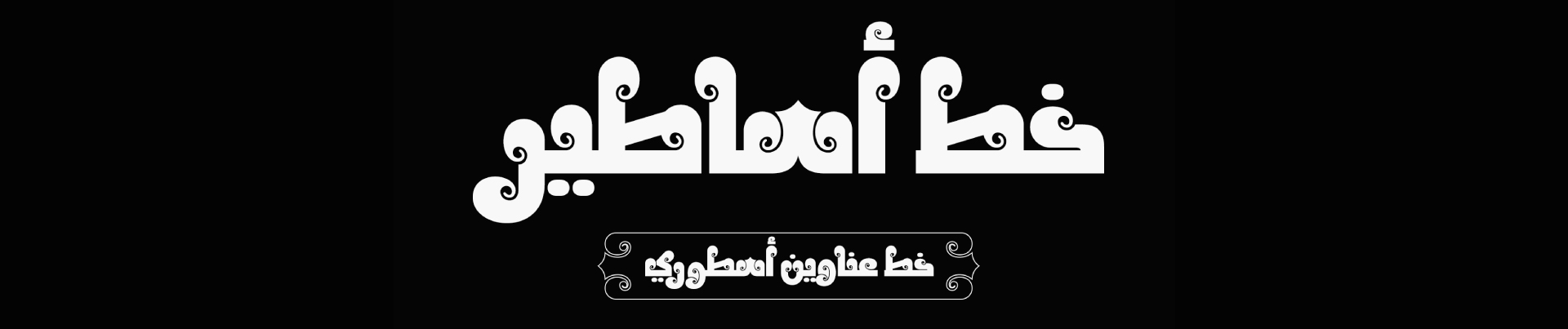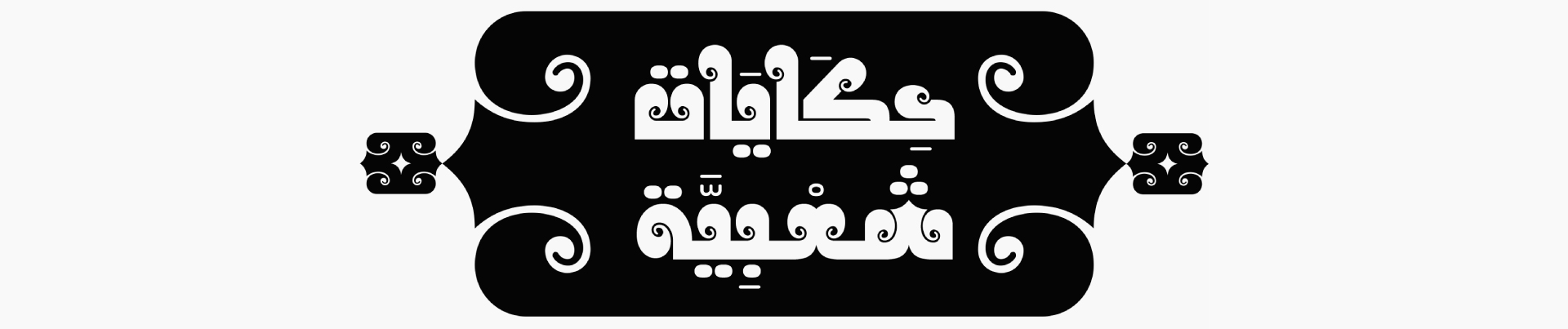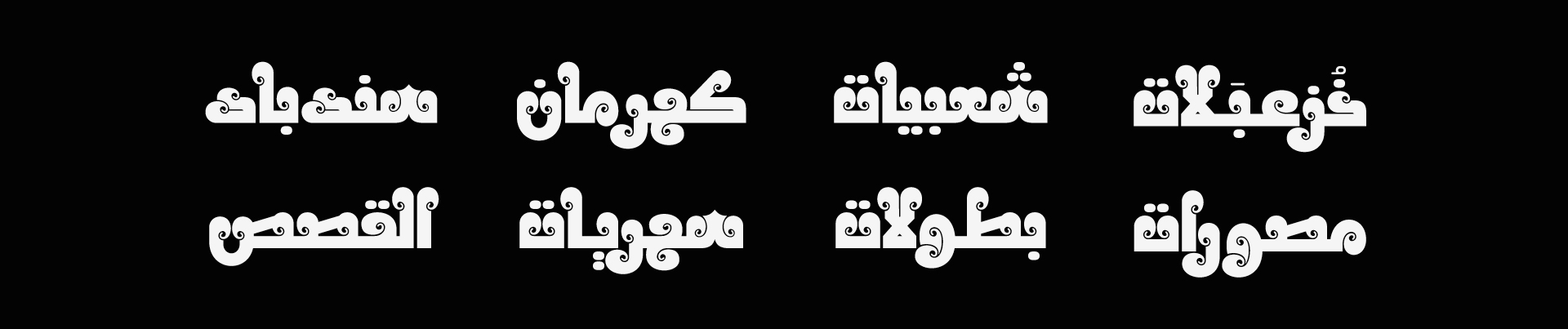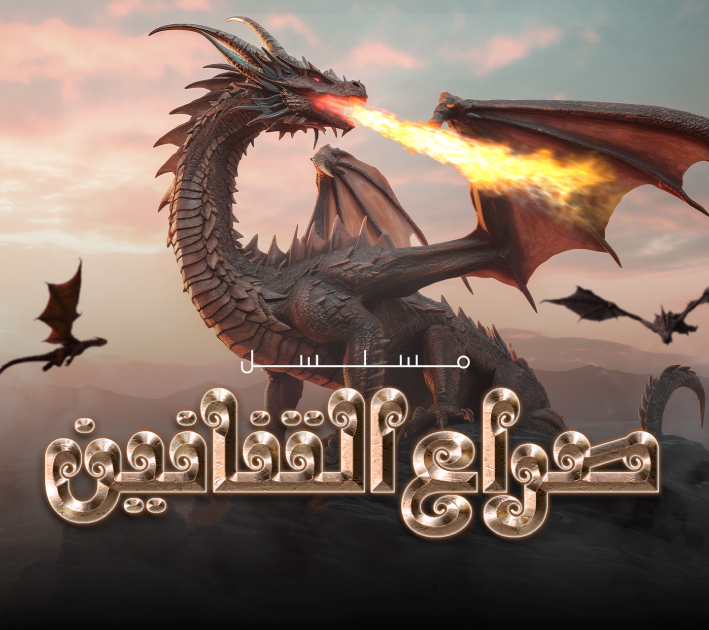
About Asatir Font
Introduction:
The Asatir font belongs to the display typeface category, where the primary study in designing this font was how to construct a complete Arabic alphabet from a single shape, which is evident in all the letters of the font, as they all contain a spiral shape.
Asatir font resembles an ancient historical font that tells a fictional story or legend; its letters are based on the Kufic Fatimi script, distinguished by its engineering and the peculiarity of its letters, while ensuring readability and making them as close as possible to the original letter shapes.
Before designing this font, we posed the question: Can a complete alphabet be designed from a single-letter shape? And the answer is YES. We present to you the culmination of the study under the name Asatir.
TSfonts Type Studio / Tarek Alsawwa